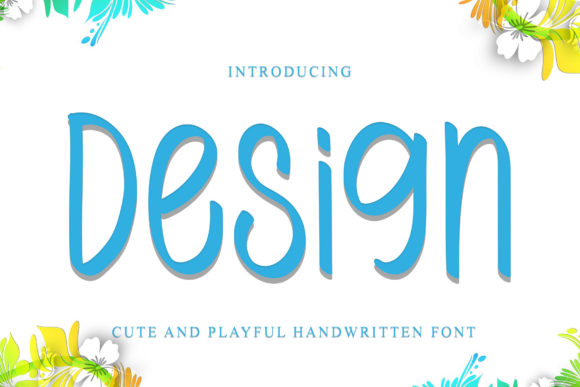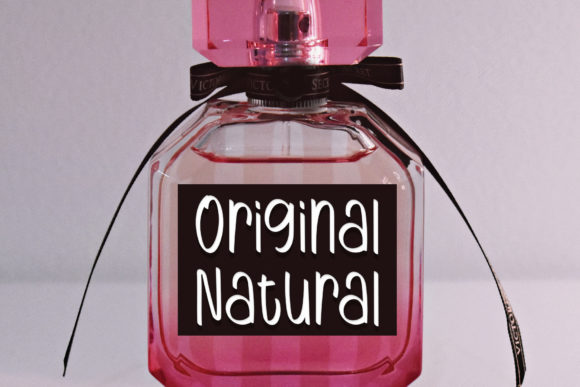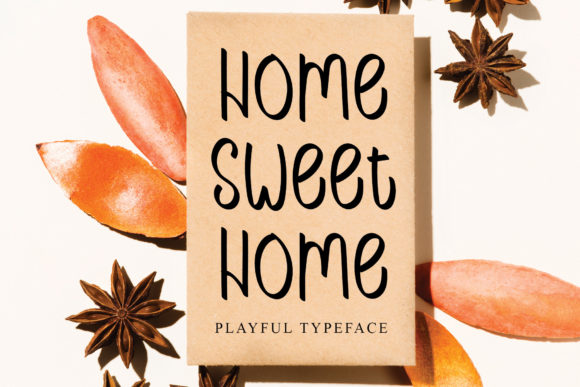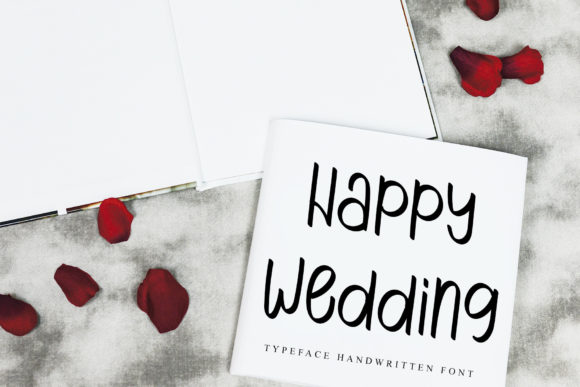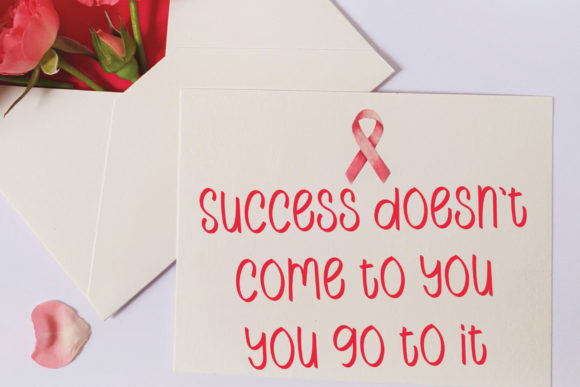
Design Font
About Design Font
Design is a unique and elegant handwritten font. Looks great on wedding invitations, greeting cards, billboards, logos, business cards, and any other design that requires a handwritten touch.